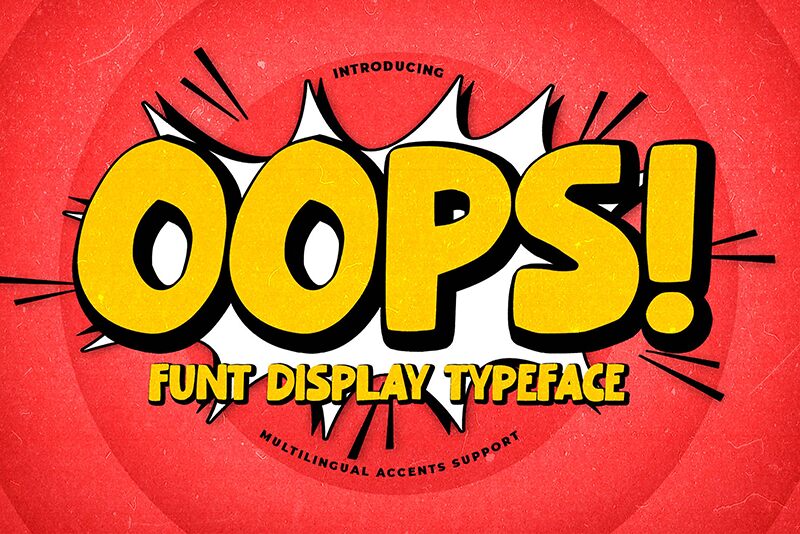
Oops by Gassstype leaps off the page with its bold display and cartoon style-a modern typeface that brings a playful spontaneity to your creative projects. With its dramatic movement and casually quick script, this font captures a sense of fun that's perfect for an array of designs. Whether you're crafting labels, sprucing up posters, or adding flair to your branding and packaging, Oops infuses each project with a cool, contemporary vibe.
The textured authenticity of Oops makes it ideal for personalizing greeting cards, websites, photography overlays, and more. It shines in settings where a touch of whimsy is welcomed without sacrificing impact. Plus, its alternate glyphs available through the OpenType panel allow for versatile customizations that make your work stand out with natural charm. Dive into the delightful world of Oops-a font that promises to elevate your designs with its unique spirit and robust presence.